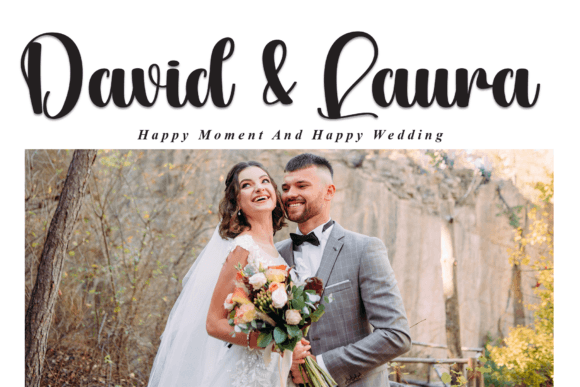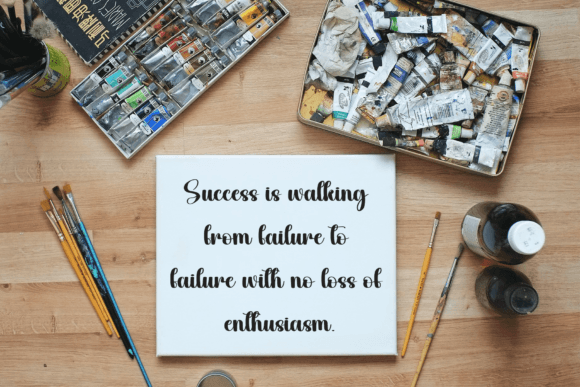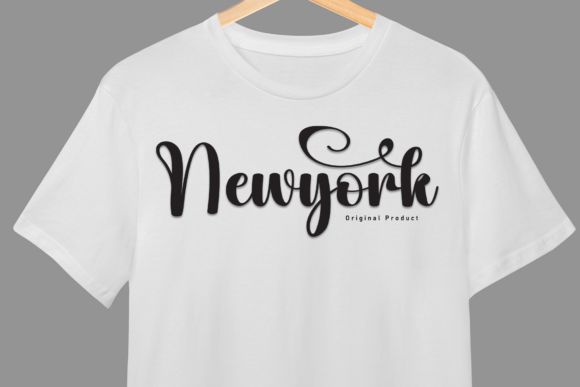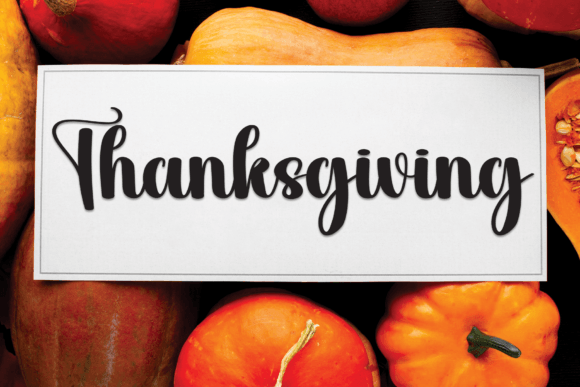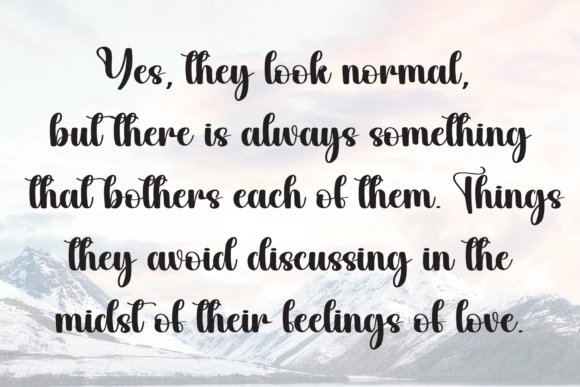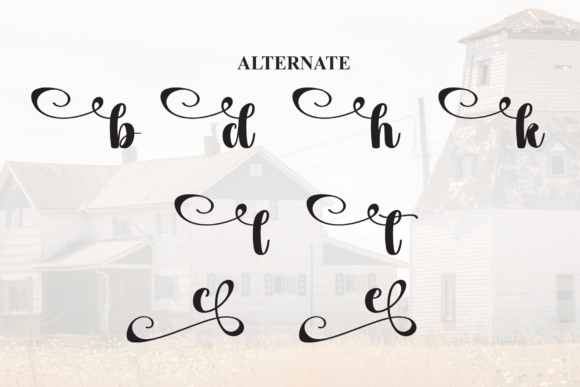
Introducing Farmhouse Font: A Delightful Blend of Charm and Playfulness
Are you looking for a font that can add a touch of sweetness and friendship to your designs? Look no further than Farmhouse Font, a tenderly handcrafted display font that perfectly encapsulates the essence of charm and playfulness. With its adorable appeal, this enchanting typeset is the perfect blueprint for crafting artistic wedding invitations, endearing cards, and so much more.
A Font that Embodies Whimsical Creativity
Farmhouse Font is more than just a font – it’s an experience. It’s a way to add a lighthearted, yet stylish sprinkle to any design that craves a touch of fun. Whether you’re a designer, crafter, or DIY enthusiast, this font is sure to delight. Its ever-pleasing aesthetics and whimsical creativity make it the perfect choice for anyone looking to add a personal touch to their projects.
The Perfect Choice for Wedding Invitations and Cards
Wedding invitations and cards are a great way to showcase the beauty of Farmhouse Font. Its adorable appeal and charming personality make it the perfect choice for couples looking to add a touch of sweetness to their special day. With Farmhouse Font, you can create stunning wedding invitations, save-the-date cards, and thank-you notes that will leave a lasting impression on your loved ones.
One of the best things about Farmhouse Font is its amazing versatility. Whether you’re designing a wedding invitation, a greeting card, or a social media post, this font can be used in a variety of contexts to add a touch of whimsy and charm. Its playful and friendly aesthetic makes it perfect for designs that require a personal touch, such as:
- Blog headers and titles
- Signs and posters
Why Choose Farmhouse Font?
So, why choose Farmhouse Font over other fonts? Here are just a few reasons why this font stands out:
- Unique and Handcrafted: Farmhouse Font is a carefully crafted font that is sure to stand out from the crowd.
- Playful and Friendly: Its playful and friendly aesthetic makes it perfect for designs that require a personal touch.
- Versatile: Farmhouse Font can be used in a variety of contexts, from wedding invitations to social media posts.
- Easy to Read: Despite its playful nature, Farmhouse Font is easy to read and understand, making it perfect for body text and headlines.
Here are a few tips for using Farmhouse Font in your designs:
- Pair it with Other Fonts: Farmhouse Font pairs well with other fonts, such as serif and sans-serif fonts. Experiment with different combinations to find the perfect look for your design.
- Use it for Headlines and Titles: Farmhouse Font is perfect for headlines and titles. Its playful and friendly aesthetic makes it a great choice for grabbing the attention of your audience.
- Add a Personal Touch: Use Farmhouse Font to add a personal touch to your designs. Its whimsical and charming personality makes it perfect for designs that require a personal touch.
In conclusion, Farmhouse Font is a delightful blend of charm and playfulness that is sure to add a touch of sweetness and friendship to your designs. With its adorable appeal and whimsical creativity, this font is perfect for designers, crafters, and DIY enthusiasts looking to add a personal touch to their projects. Whether you’re designing a wedding invitation, a greeting card, or a social media post, Farmhouse Font is the perfect choice. So why wait? Download Farmhouse Font today and experience the amazing versatility of this enchanting typeset.